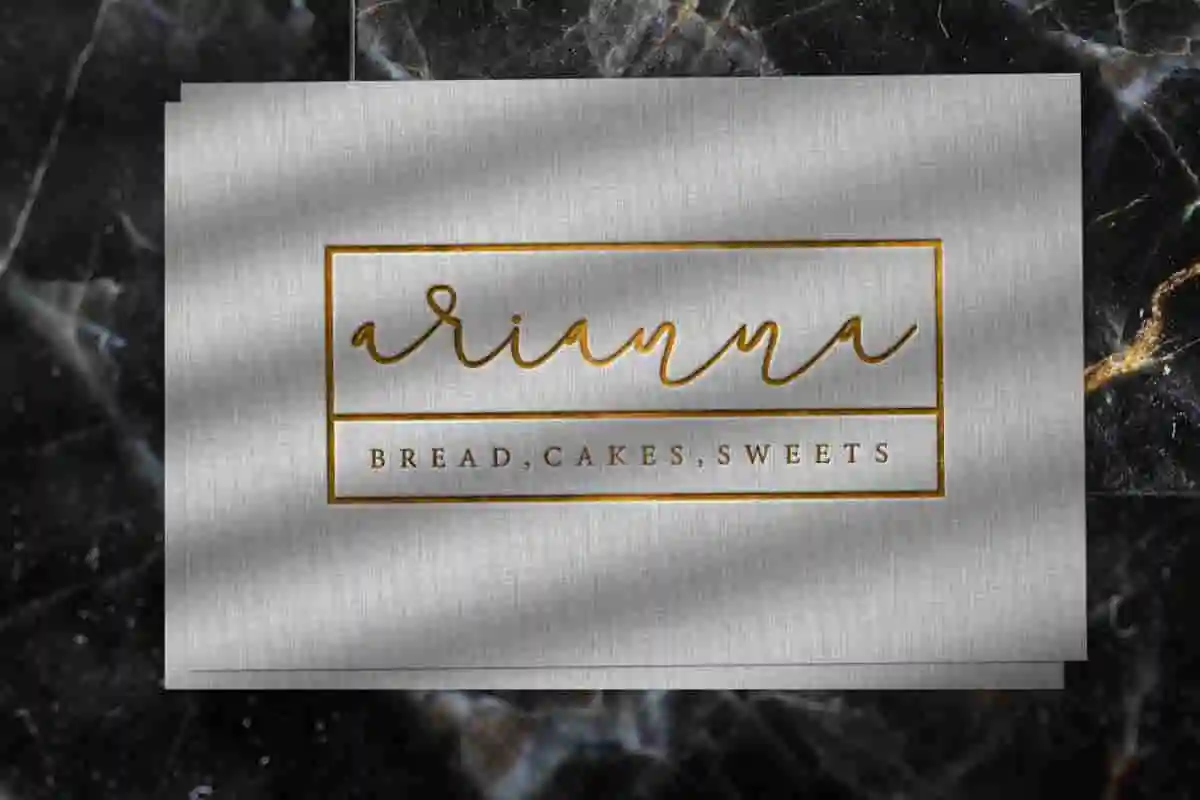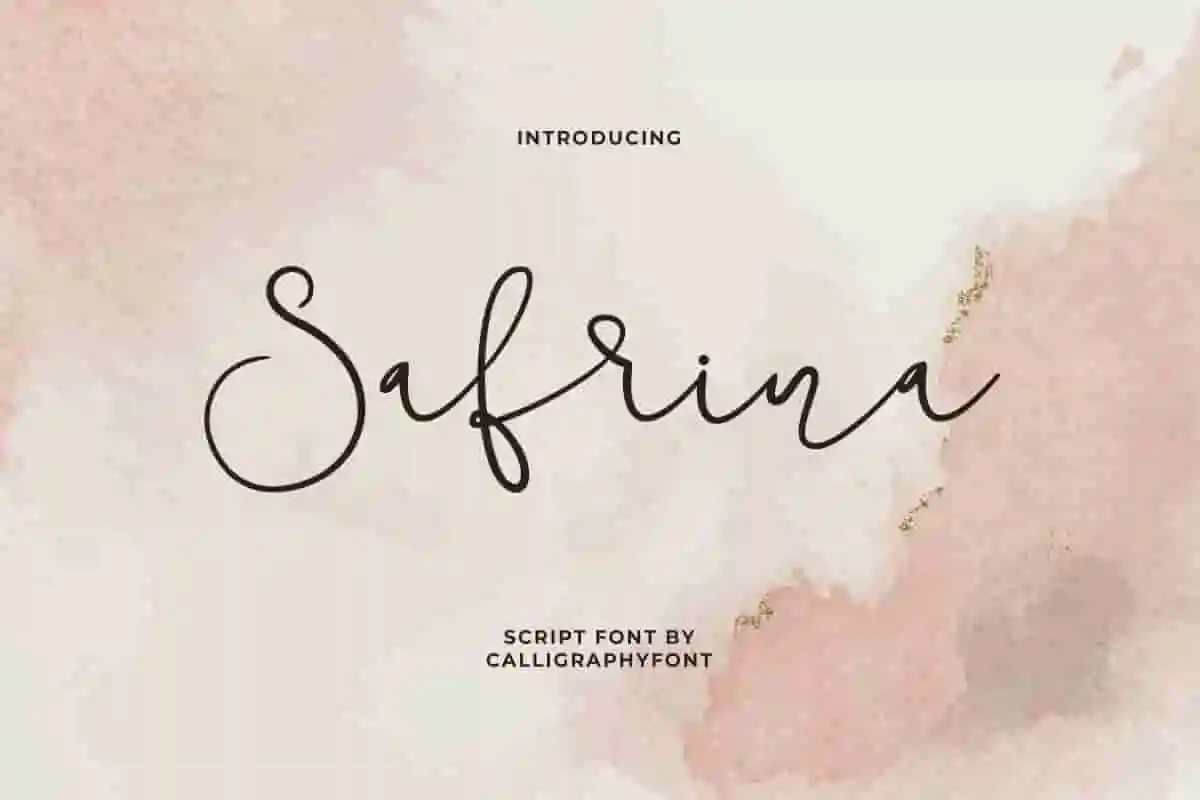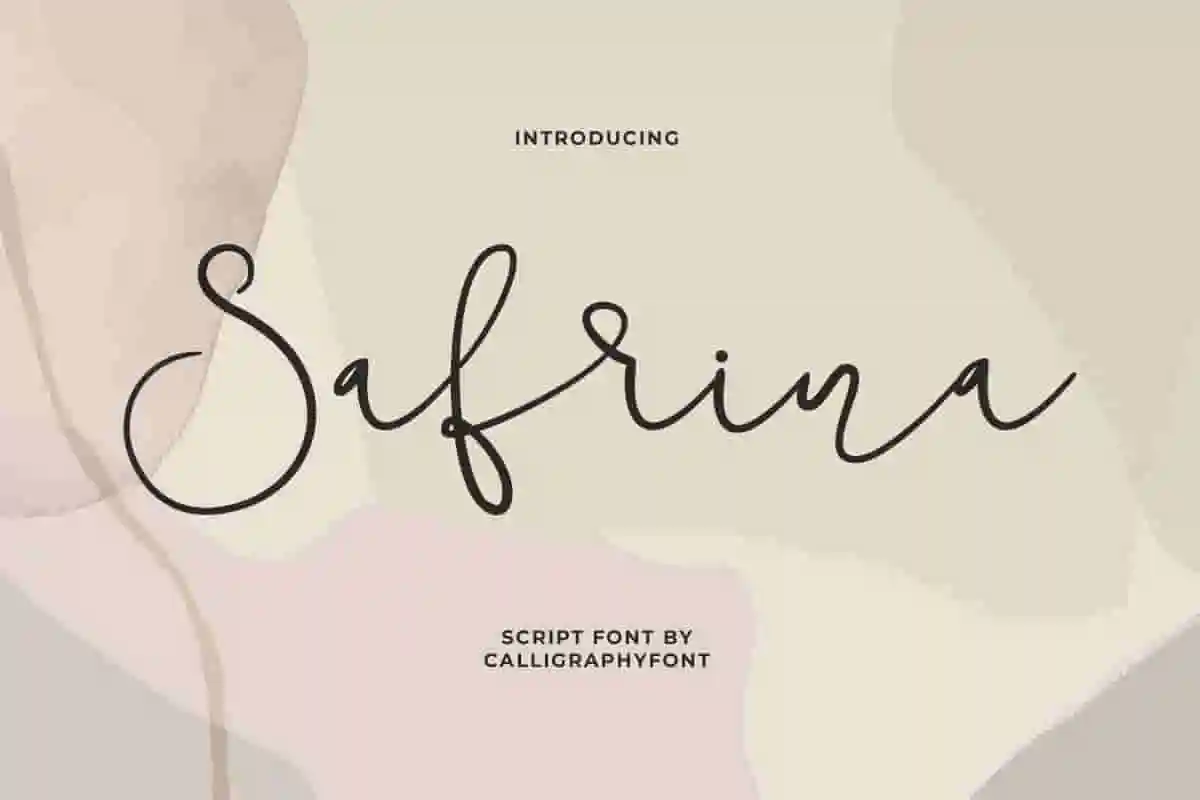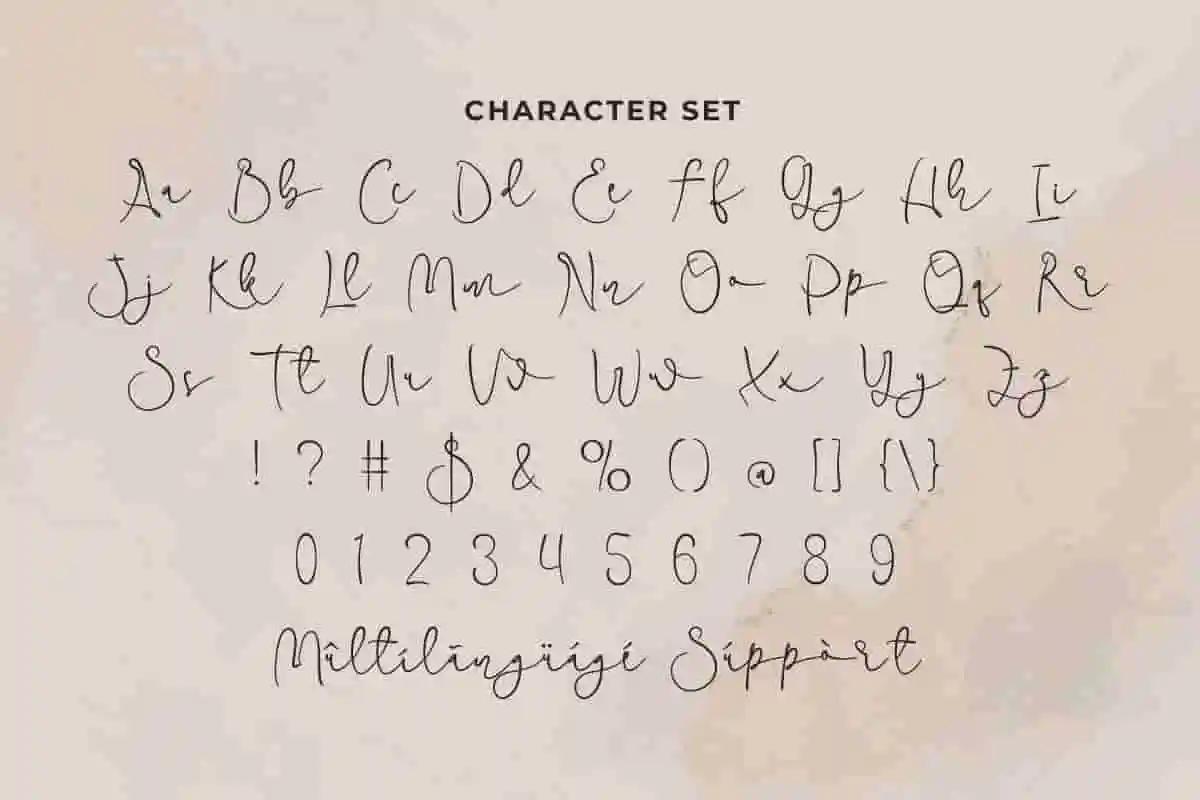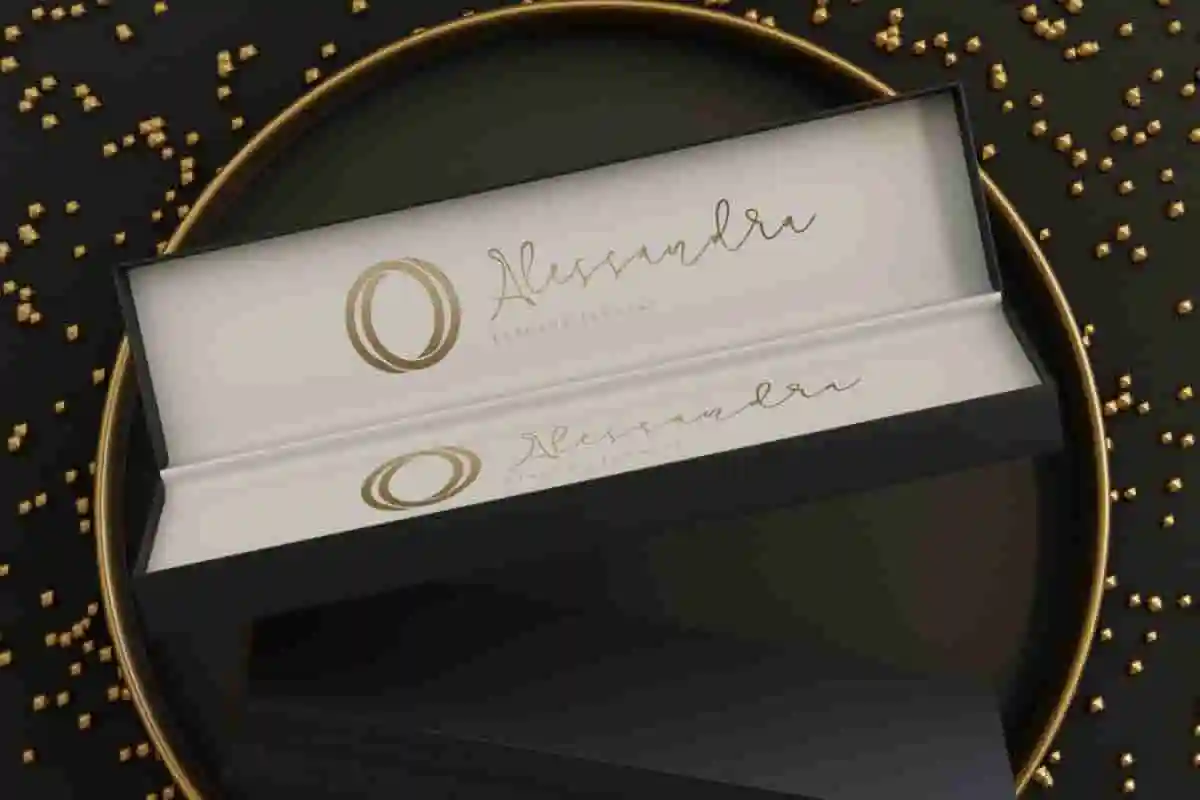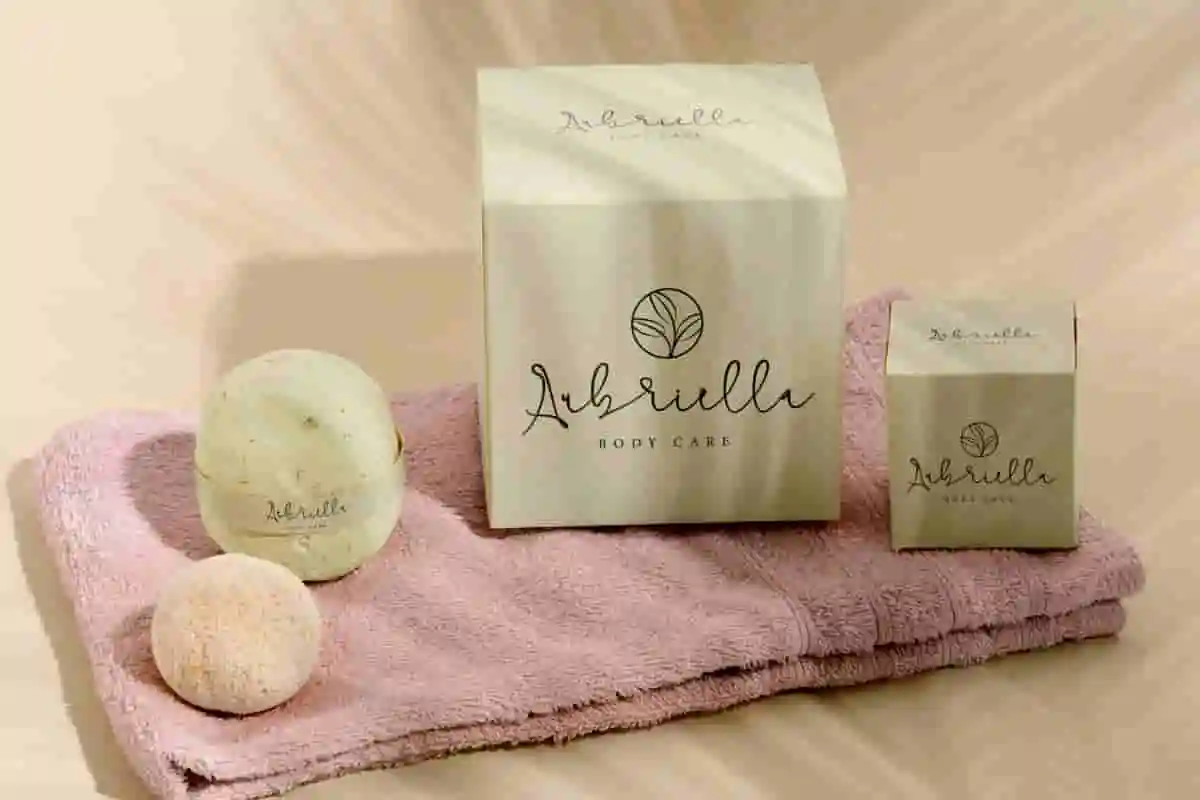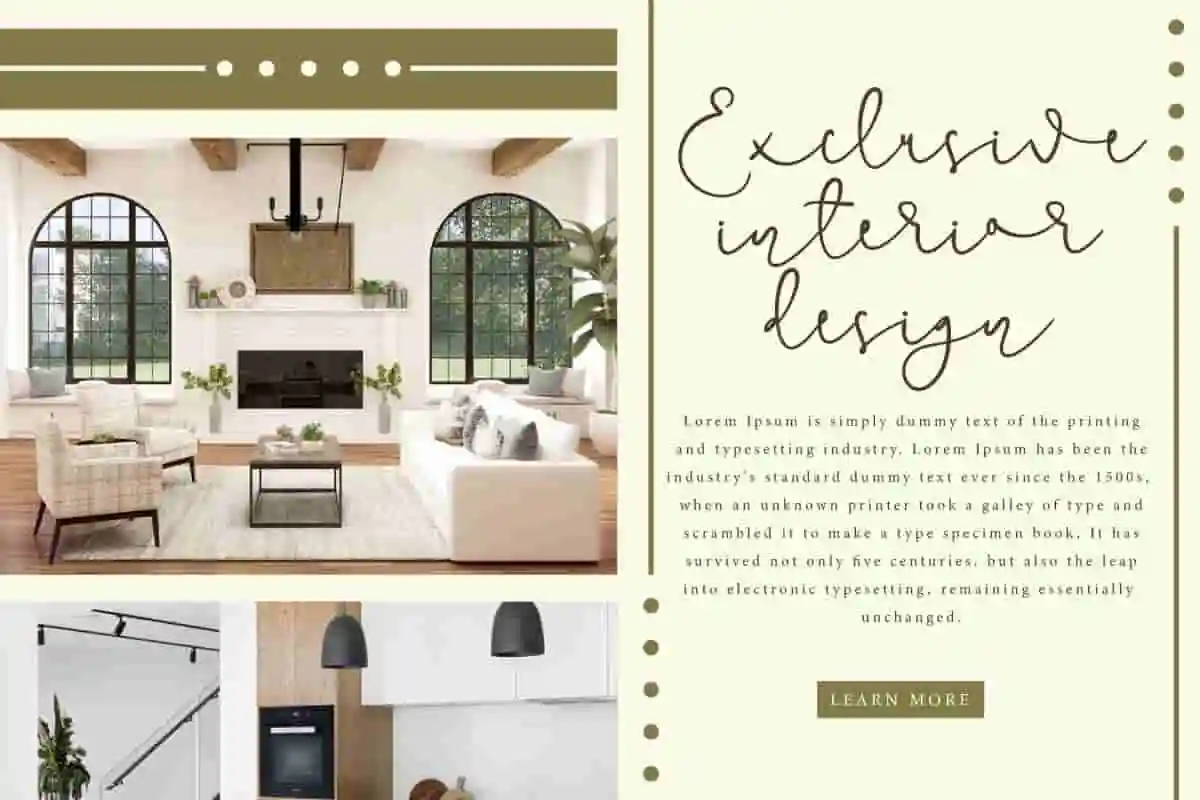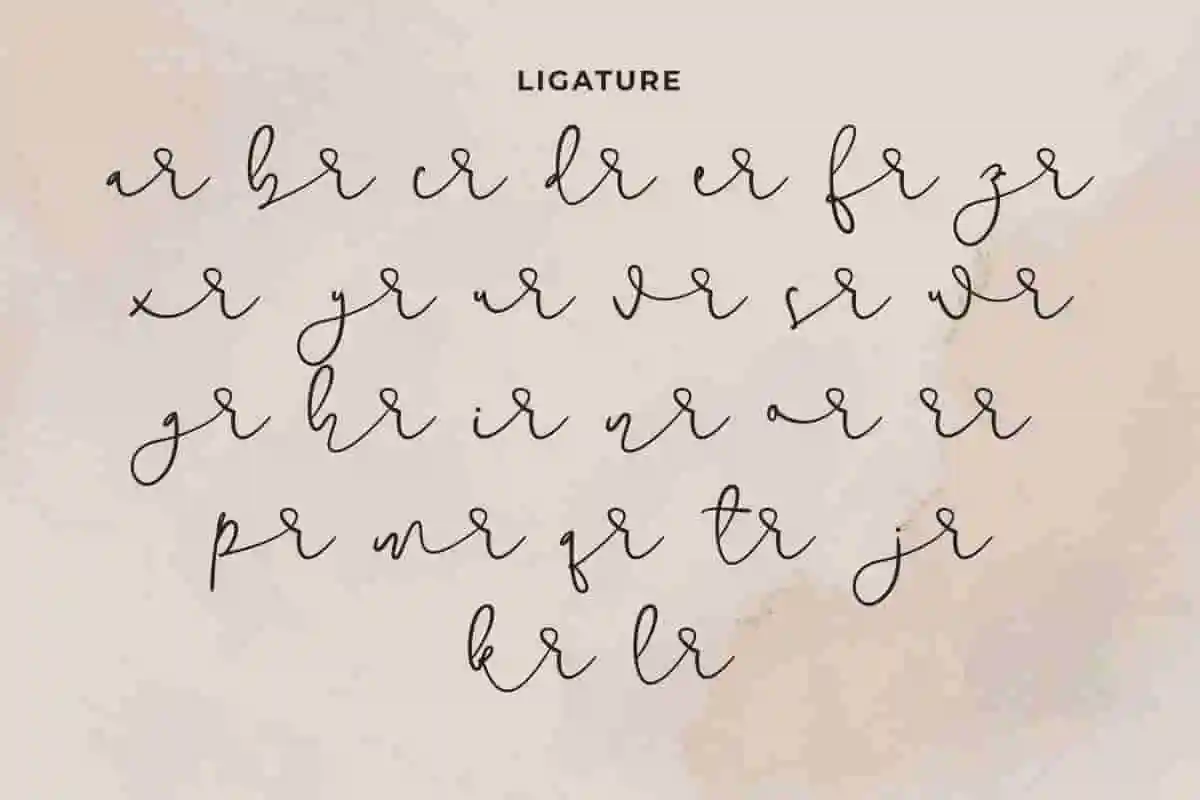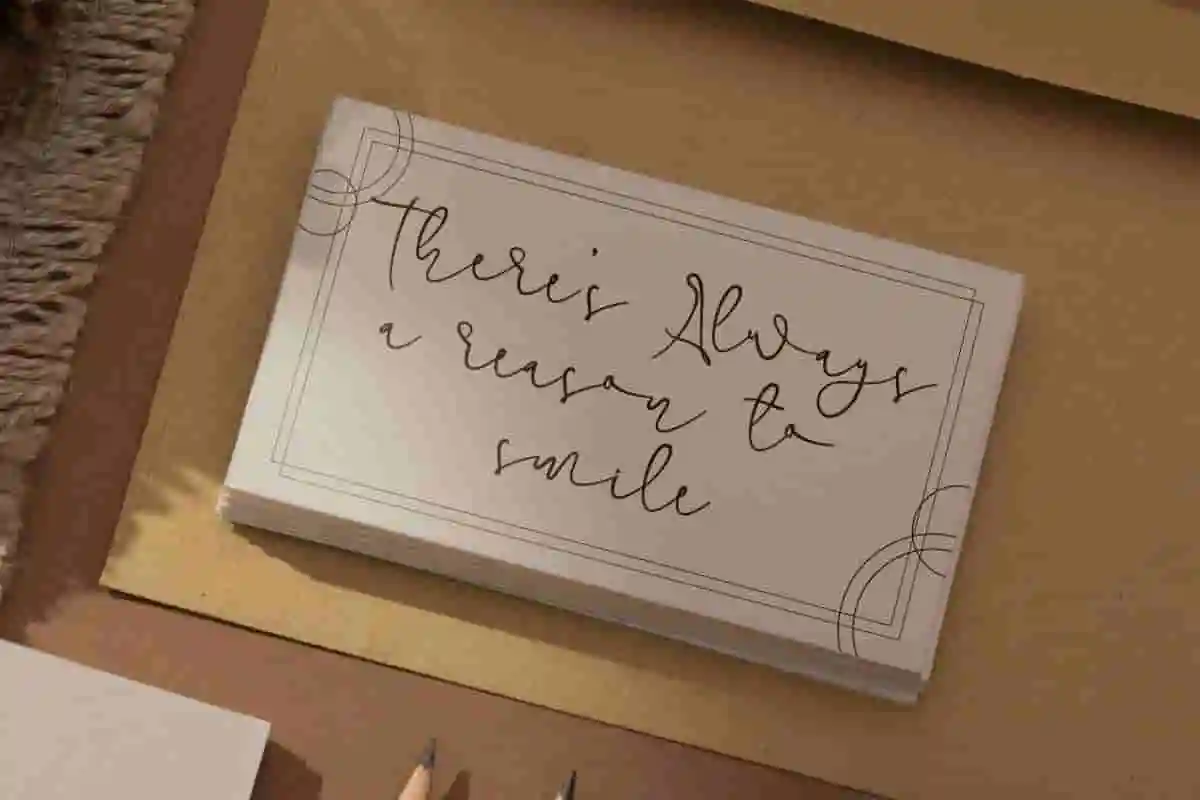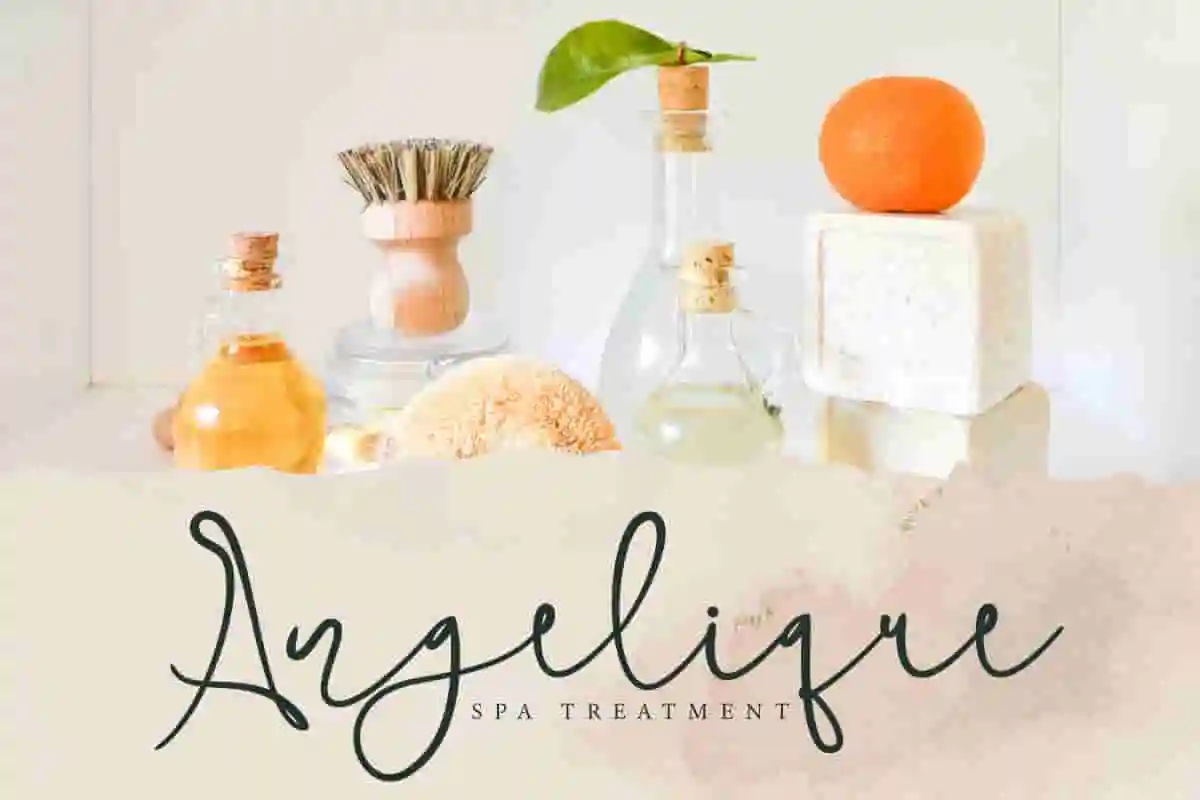
Safrina Handwriting Font
Safrina Font is a casual handwritten script font. It will be perfect for bakery and pastry, body card brand, business card, invitation, jewelry, spa, website, or simply use it in your background writing.
Safrina Font is a casual handwritten script font. This font has a subtle feel so creating a natural-looking look can enhance your creative projects such as : brand logo, business card, catalog, invitation, label, packaging design, quote, stationery, sticker, title, watermark, website, and much more.
Safrina is designed to mimic natural handwriting, giving your work a soft, human touch. Whether you’re creating logos, branding materials, social media graphics, or wedding invitations, Safrina helps you communicate with personality and clarity. Meet Safrina Handwriting Font – a beautifully crafted handwritten font that brings authenticity and charm to every project.
Bring your ideas to life with Safrina Handwriting Font, a modern handwritten typeface that blends simplicity, warmth, and elegance into every stroke. Whether you’re designing for personal or professional use, Safrina offers a natural and stylish handwritten look that instantly elevates your work. Crafted to feel like real handwriting, Safrina is perfect for logos, branding kits, wedding invitations, social media content, quotes, and more.
Introducing Safrina Handwriting Font – a smooth, modern script that captures the beauty of handwritten lettering with a fresh, stylish twist. If you’re looking for a typeface that feels personal, approachable, and elegant, Safrina is the font you’ve been searching for. Designed to flow naturally like real handwriting, Safrina brings warmth and personality to any design. Whether you’re working on branding, wedding invitations, social media posts, journals, or custom merchandise, Safrina adds a soft, feminine touch that feels both modern and timeless.
Safrina Font will be perfect for any industry, such as accessories, architect, bakery and sweet things, boutique, café, furniture, handicraft, homeware, jewelry, printing, publishing, restaurant, spa treatment, and anything that requires an elegant look. Presents a font that is aesthetically pleasing and perfect in form and legibility, making it a great choice for primary text or in combination with other types of fonts.
Safrina Font comes with a full set of Uppercase and Lowercase Basic Characters, Number, a large range of Punctuation and Symbol, also Ligature. Ready to use both on Windows machine or Mac with simple installations. It’s tested to work well in the Adobe Apps (Illustrator, Adobe InDesign, Adobe Photoshop) CorelDraw, and others. It supports multilingual characters. PUA Encode Characters means you can access all the characters easily – Fully accessible without additional design software.